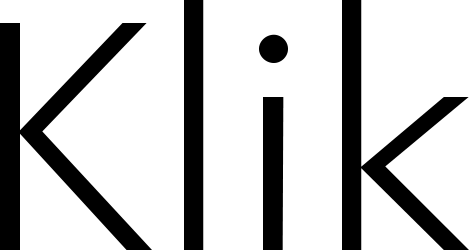
Klik Font
To write an e-book or design an application or webpage, you need a font such as Klik that has high readability. This sans serif font conveys a sense of friendly, modern, and approachable to the audience and thereby impresses them. So, by using this font, you can increase the efficiency of your content.
Klik is a universal sans serif family – clean and timeless. Both iconic and legible, Klik is suited to cover many needs from brand identities to editorial design, advertising, logos and beyond. Cyrillic characters are featured and a wide range of languages is supported. OpenType features are abundant – from built-in small capitals to various numeral styles (linear and old style; tabular and proportional, subscript and superscript).
Klik comes in three widths – each featuring eight weights and corresponding italics.